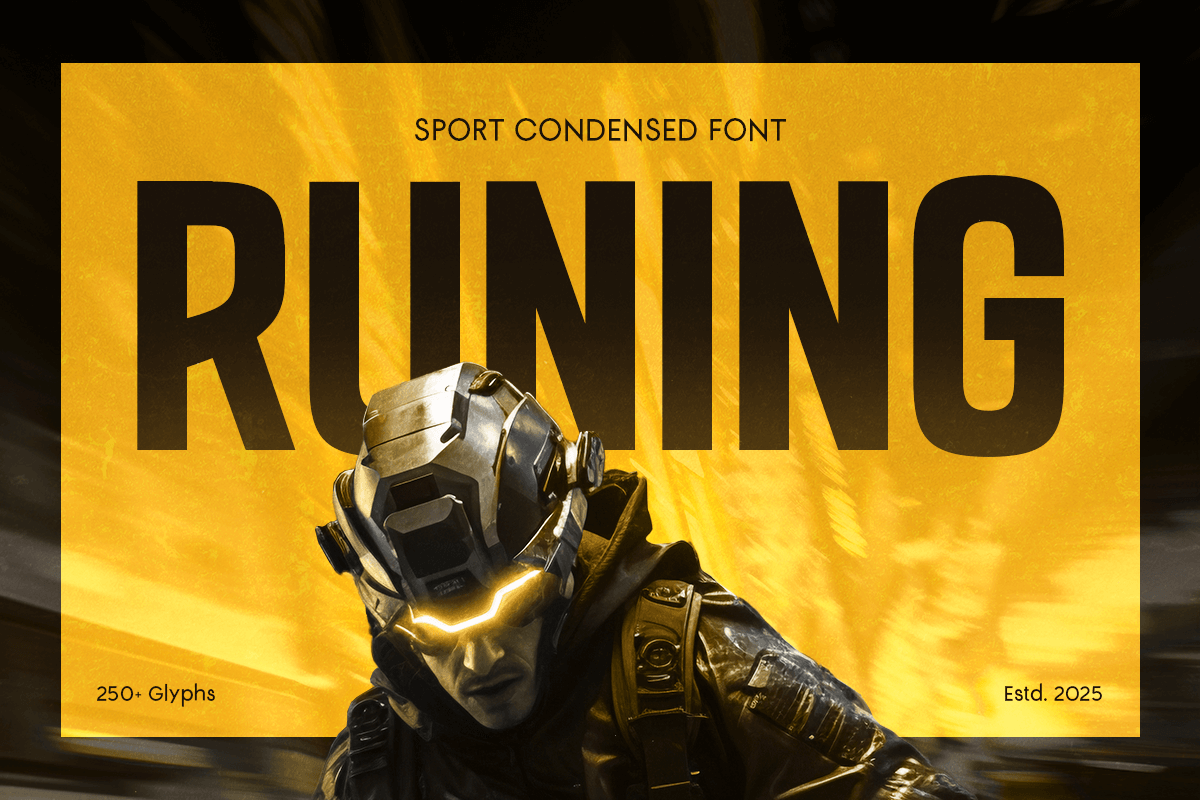
Runing
-Sport Condensed Font
Runing Font
Runing Font - Sport Condensed Font
Runing font is a high-energy sport condensed font designed for speed, strength, and impact. With its bold, narrow letterforms and sleek structure, this typeface is perfect for athletic branding, esports visuals, fitness gear, and adrenaline-fueled marketing campaigns. Whether you're designing for a sports team, a dynamic event, or a high-performance product, Runing font delivers a powerful and professional presence.
Inspired by the movement and intensity of competitive sports, Runing font captures the essence of motion and action. Its sharp angles and tight spacing give a dynamic and aggressive look, making it ideal for racing posters, gym logos, game titles, and fitness apparel.
If you want a bold, modern, and fast-looking font that commands attention, Runing font is the perfect choice.
Runing Font - Sport Condensed Font Features:
• Bold, strong, and athletic letterforms
• Perfect for sports branding, gaming, and high-energy designs
• Punctuation, numbers, and symbols included
• Uppercase and lowercase letters
• OpenType features for extra creative flexibility
Multilingual support for: Afrikaans, Albanian, Basque, Breton, Catalan, Croatian, Czech, Danish, Dutch, English, Estonian, Finnish, French, Galician, German, Hungarian, Icelandic, Indonesian, Irish, Italian, Latvian, Lithuanian, Luxembourgish, Maltese, Norwegian, Polish, Portuguese, Romanian, Slovak, Slovenian, Spanish, Swedish, Turkish, Welsh, and more.
Unleash the speed and power of your designs with Runing font—the ultimate sport condensed font for high-performance projects.